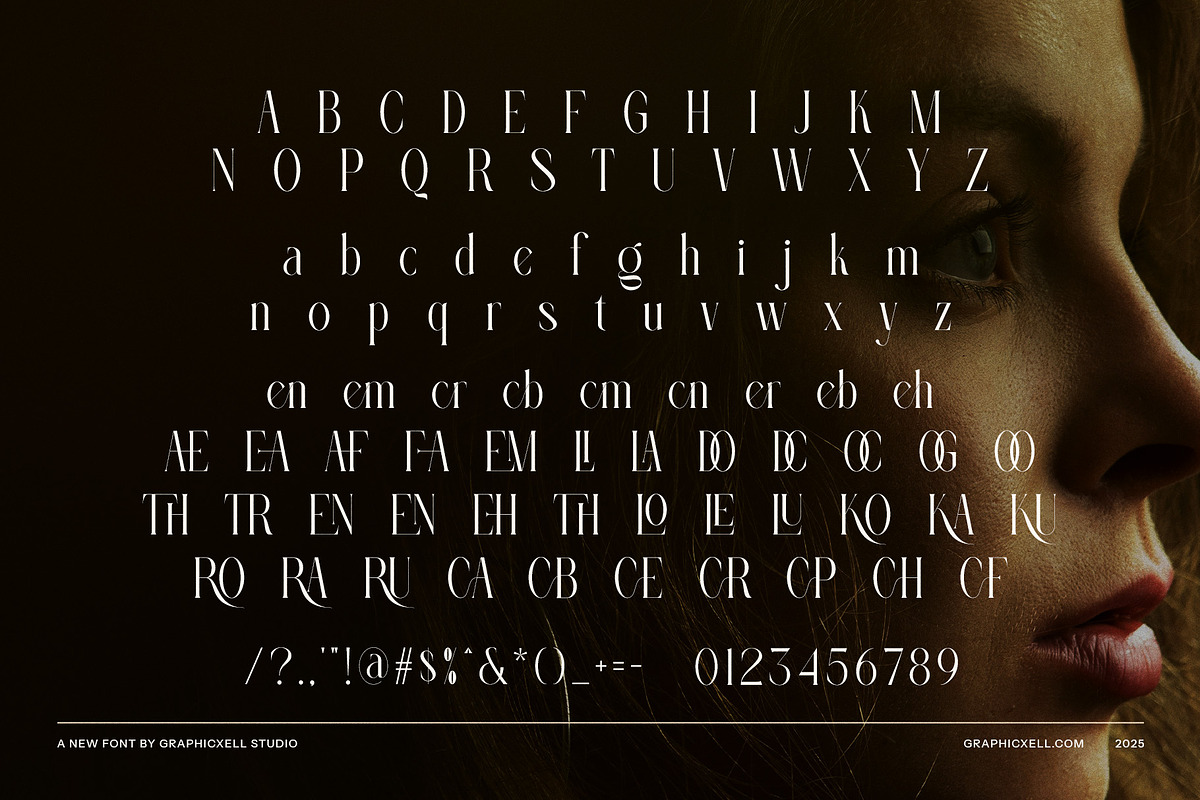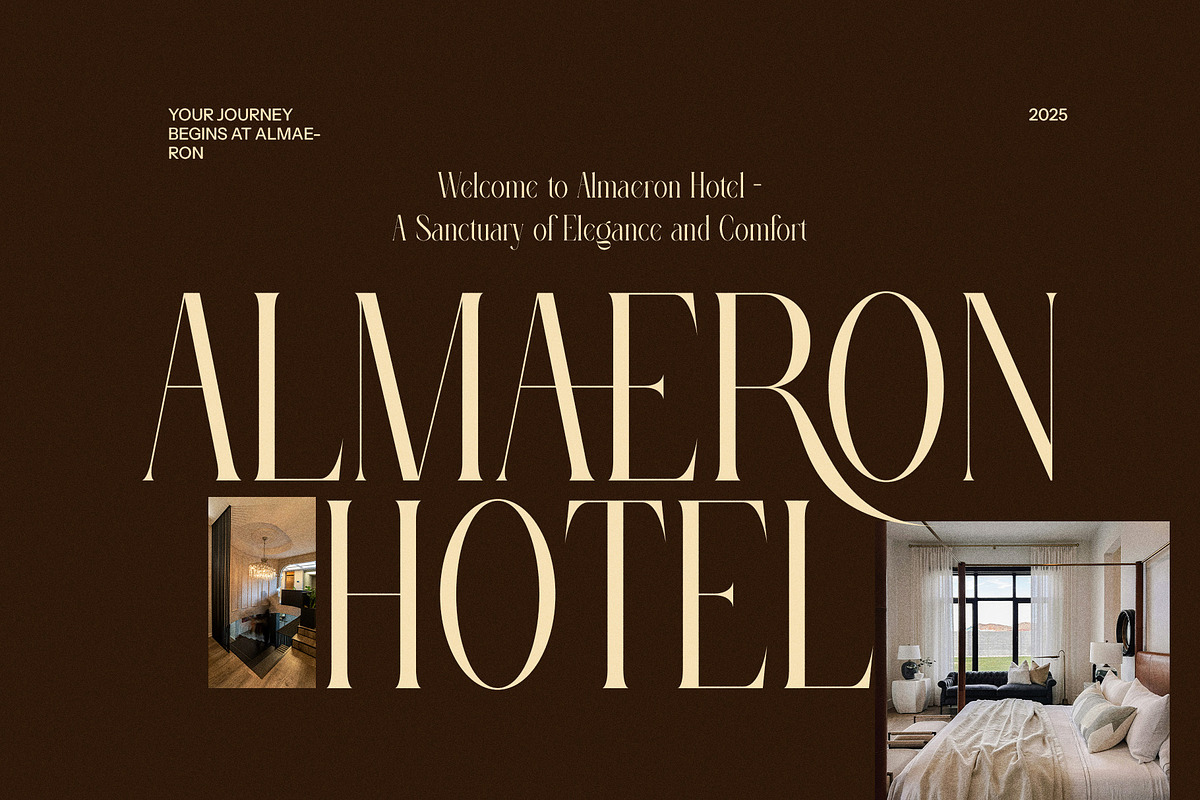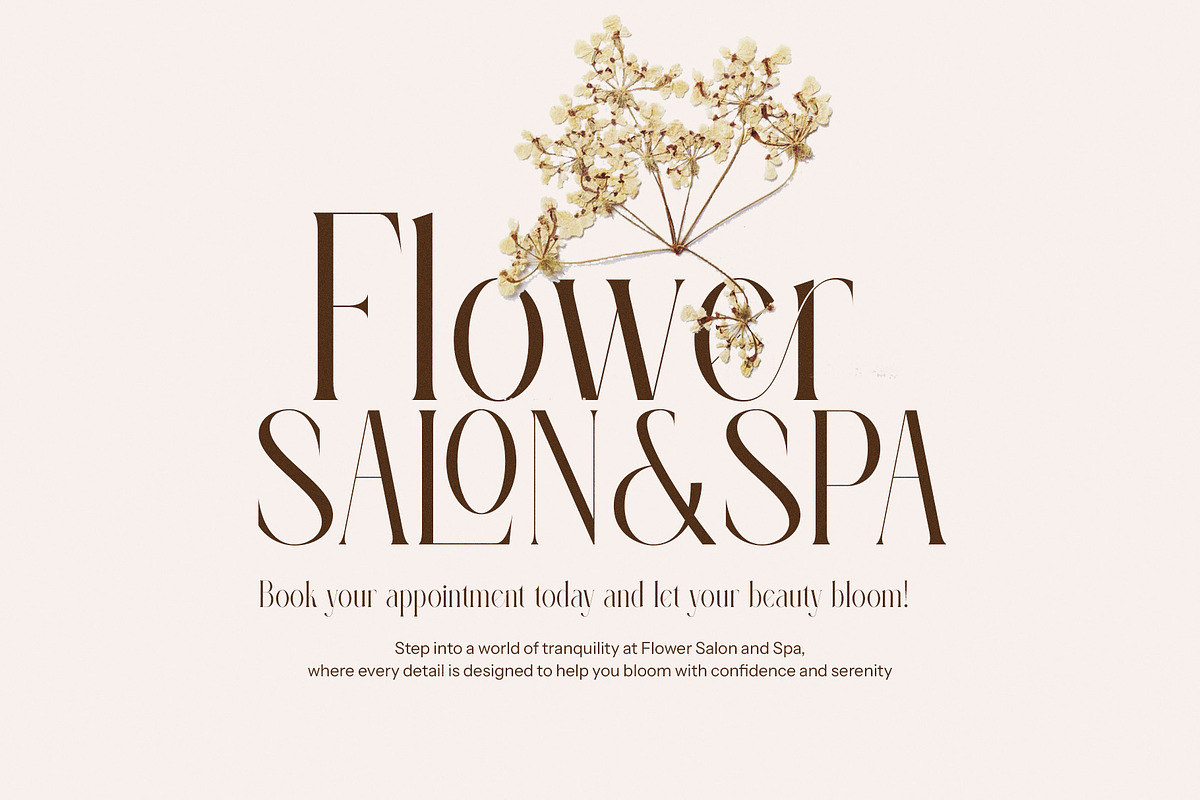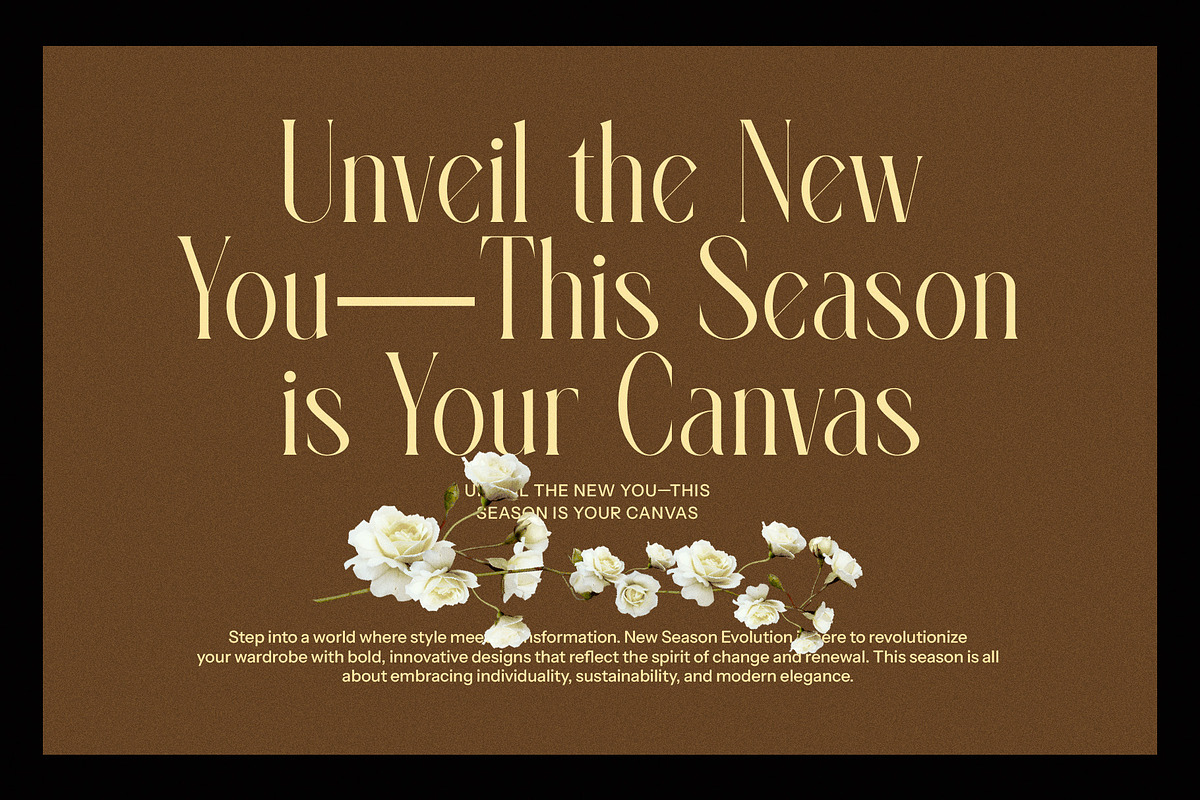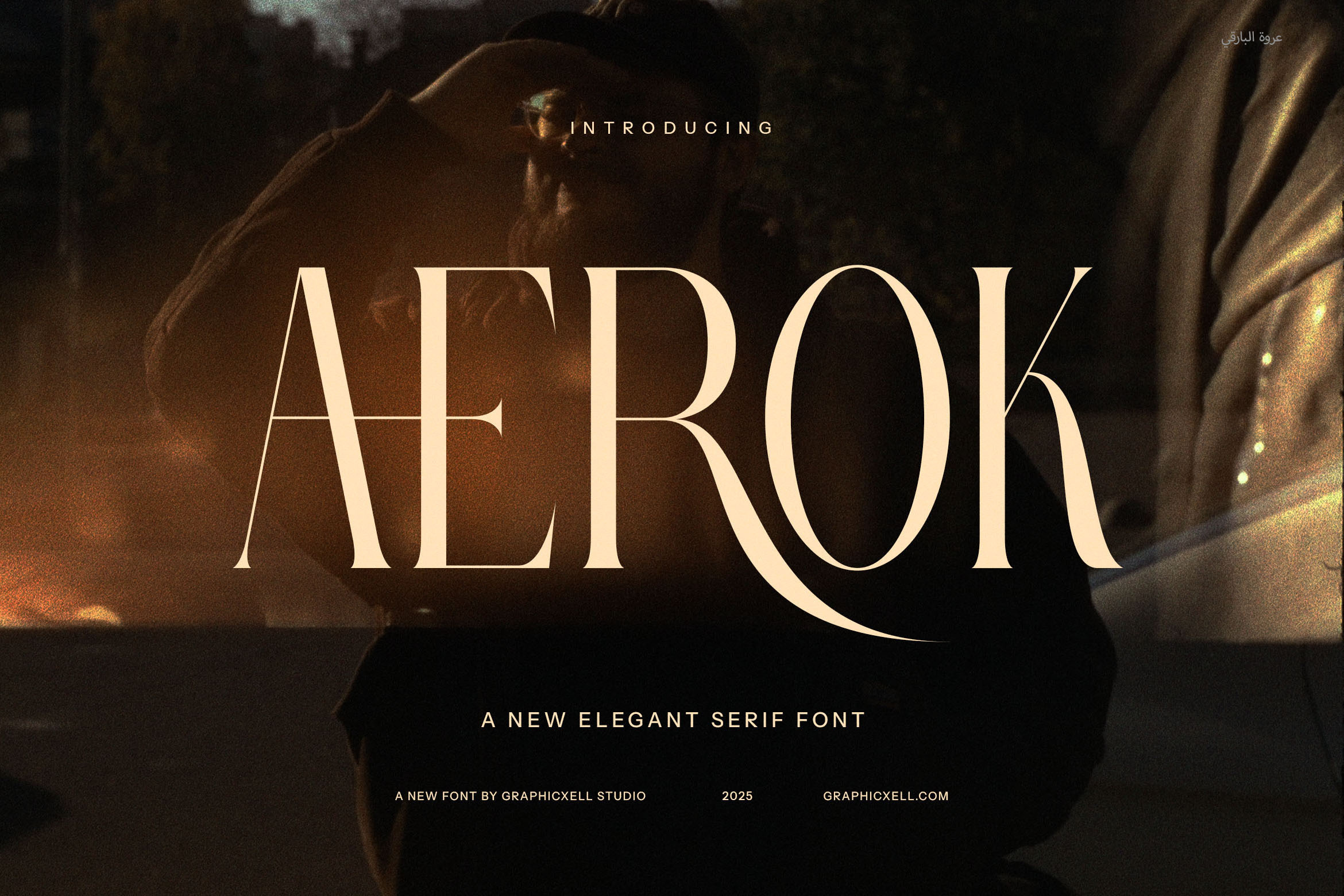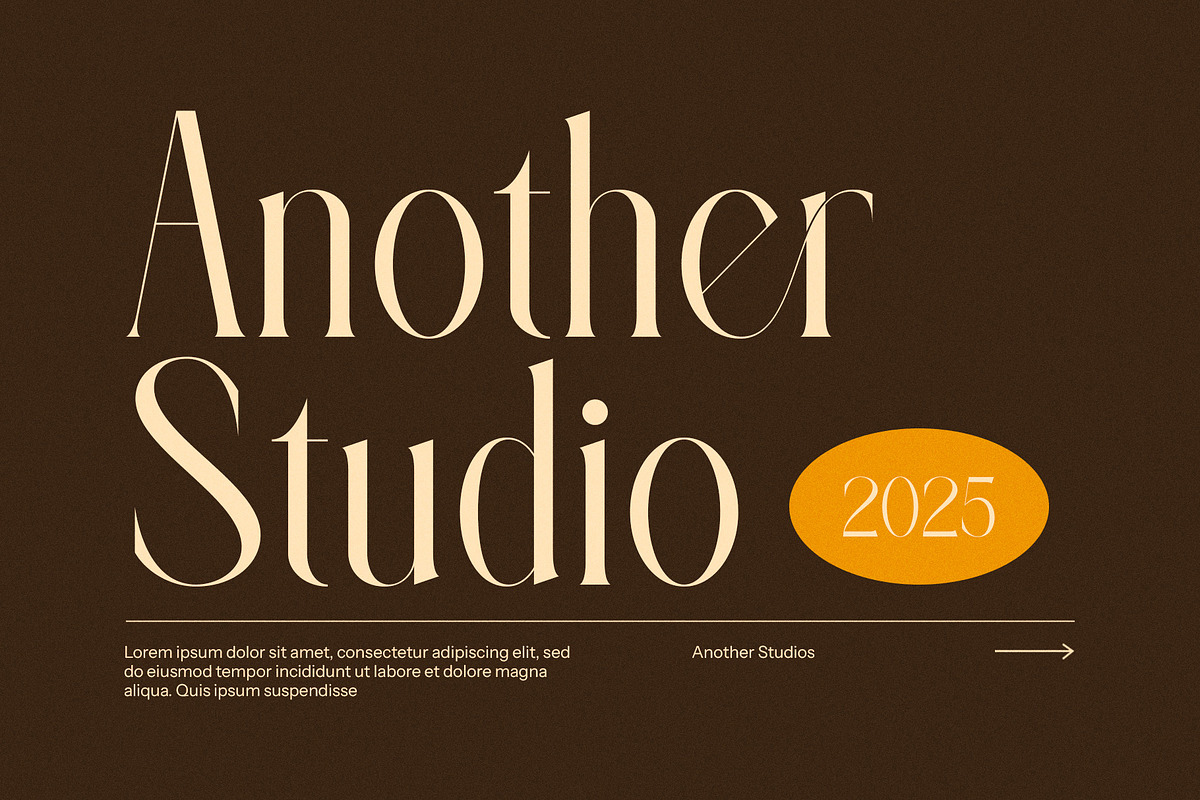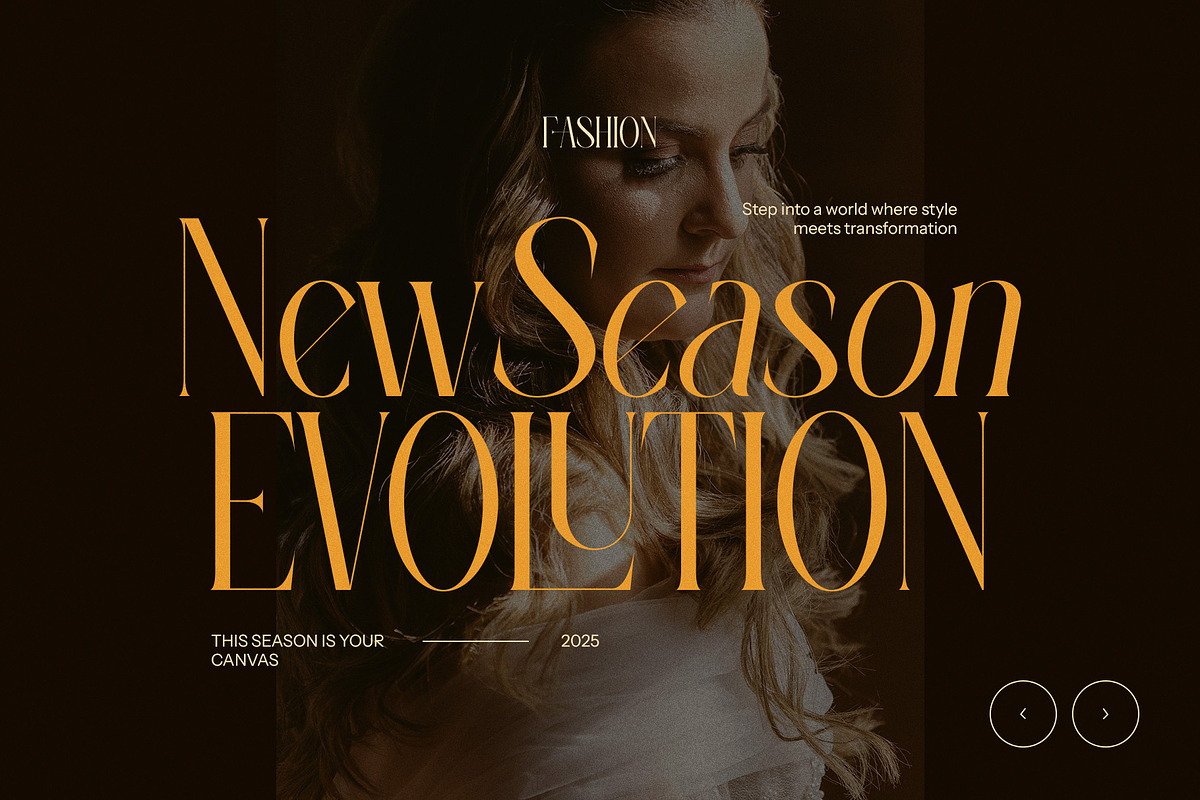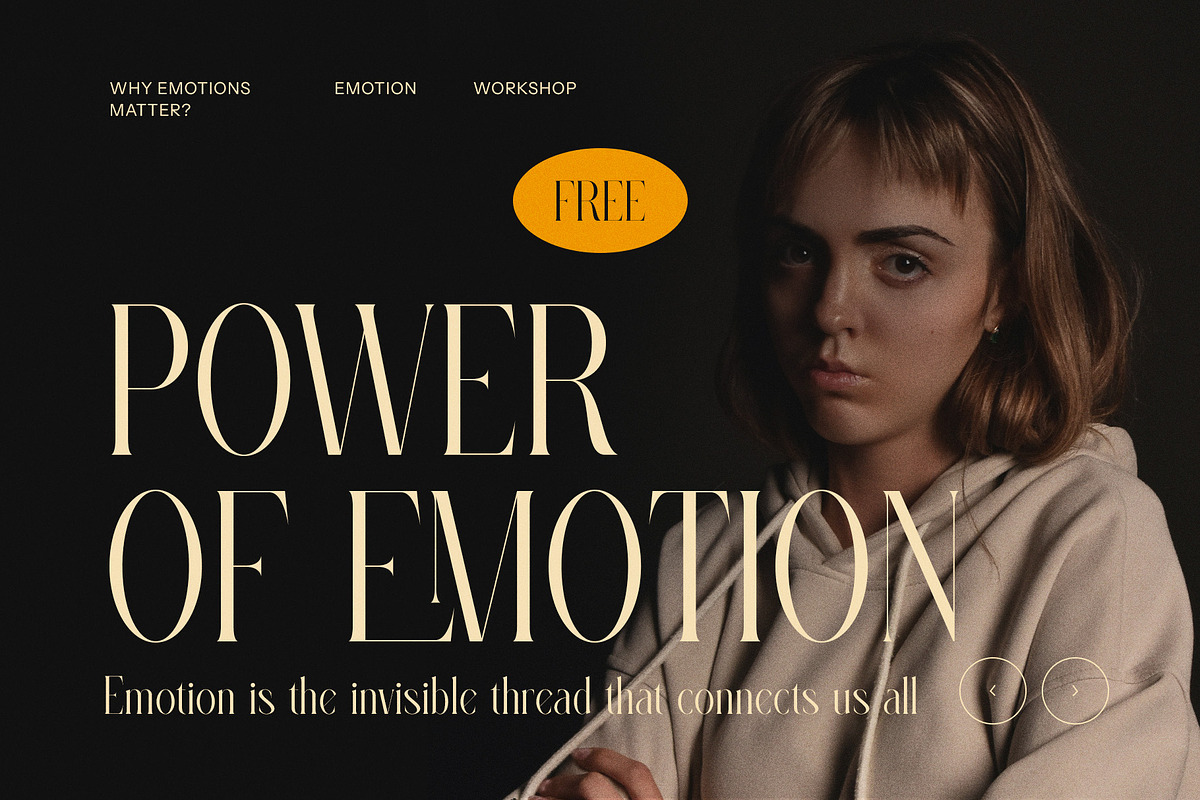
Aerok Elegant Serif Font
Aerok Elegant Serif Font is a sophisticated typeface that combines modern aesthetics with timeless elegance. Its sleek design features refined serifs, graceful curves, and distinctive ligatures, making it a versatile choice for a wide range of creative projects. The font’s unique alternates and stylistic options allow for effortless customization, ensuring your designs stand out with a polished and professional touch.
Ideal for branding, Aerok exudes luxury and sophistication, making it perfect for upscale logos, high-end product packaging, and premium advertising campaigns. Its clean yet expressive forms work beautifully in editorial layouts, such as magazines and websites, where readability and style need to coexist harmoniously.
This typeface also shines in boutique designs, whether for fashion labels, jewelry brands, or artisanal goods. Its elegant strokes lend themselves perfectly to evoking class and exclusivity, while the modern touches keep it approachable and fresh. Aerok is equally fitting for food and beverage projects, giving menus, product labels, and promotional materials a contemporary, stylish flair.
Whether you’re crafting minimalist layouts or bold, statement pieces, Aerok Elegant Serif Font adapts effortlessly. With its balance of modern and classic design elements, it’s a perfect choice for anyone looking to elevate their typography. Combine its luxurious appearance with the creative flexibility of ligatures and alternates to unlock endless design possibilities. Aerok isn’t just a font—it’s a sophisticated design tool that enhances your visual storytelling.